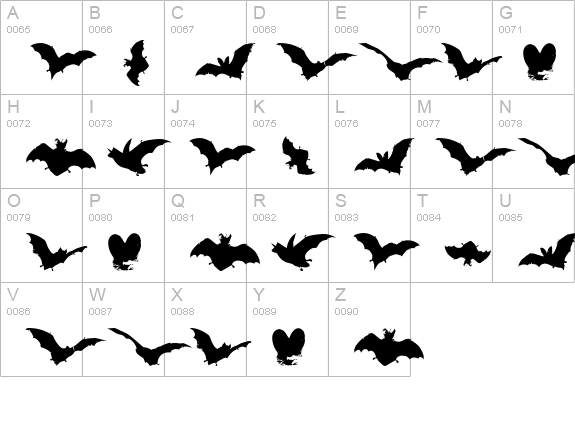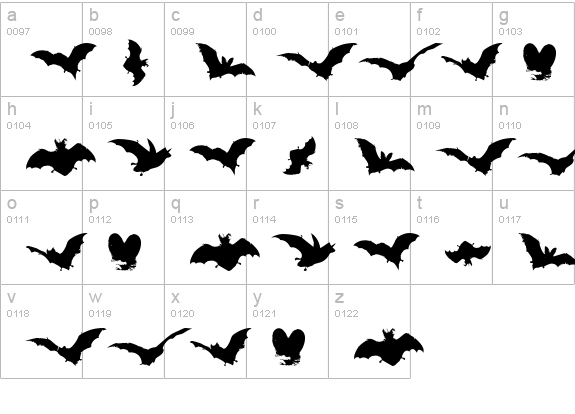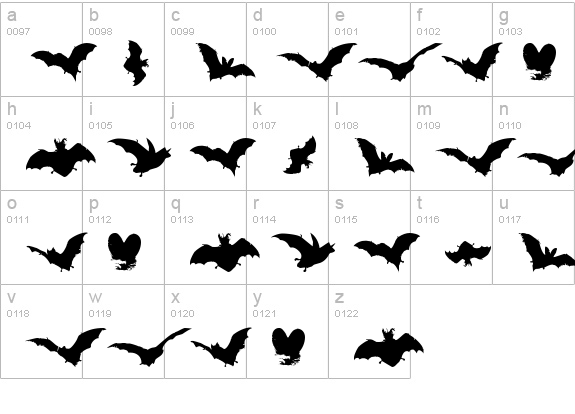
VampyrBats Font Details
VampyrBats font is a striking and mesmerizing typeface that is sure to captivate anyone who lays eyes on it. With its intricate and ornate design, this font exudes an air of mystique and allure. The letters of VampyrBats font are meticulously crafted to resemble the elegant wings of a vampire bat, with sharp edges and graceful curves that effortlessly blend together. Each character is a work of art, meticulously designed to create a harmonious and visually stunning display. But what truly sets VampyrBats font apart is the fact that it is free. Yes, you heard that right. This incredible font is freely available to download at FontsMarket.com. It's a rare find in the world of typography, where unique and high-quality fonts often come with a hefty price tag. Whether you're a graphic designer looking to add a touch of darkness and intrigue to your projects, or a Halloween enthusiast in search of the perfect font for your spooky invitations, VampyrBats font is the ideal choice. Its versatility makes it suitable for a wide range of applications, from posters and flyers to logos and branding materials. So don't miss out on this incredible opportunity to enhance your design work with VampyrBats font. Head over to FontsMarket.com and grab your free download today. Unleash your creativity and let this font take your designs to new heights.